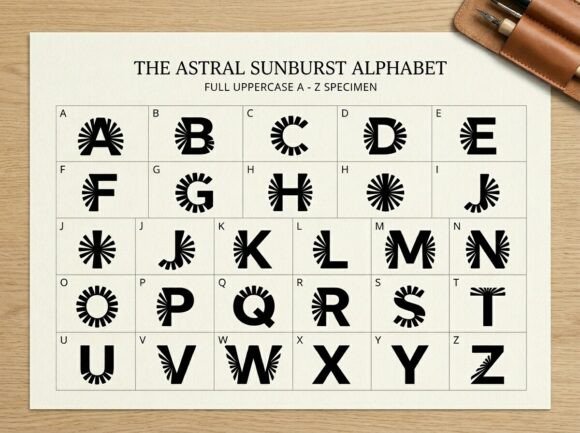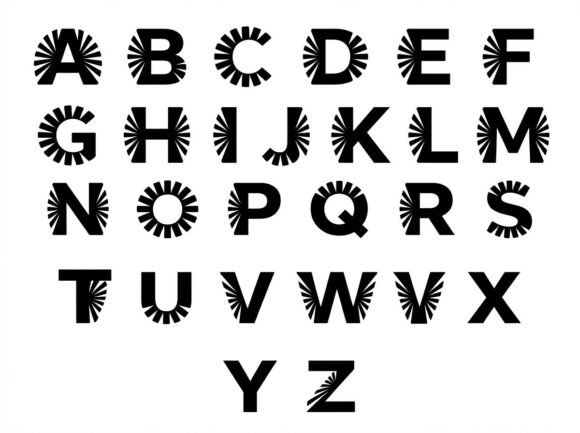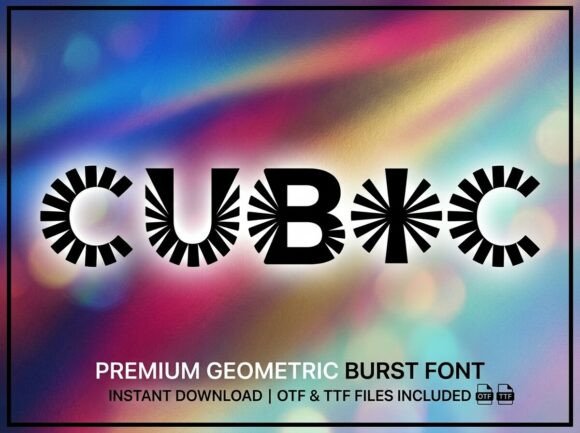
Introduction to Cubic Font
Ignite your creative projects with Cubic, an explosive radial display font designed to burst off the page.
This high-impact typeface features bold, sans-serif letterforms characterized by a dynamic β€œshattered” effect, with sharp shards radiating outward from the center of each glyph The rhythmic contrast between the solid black cores and the airy, splintered terminals creates a sense of instantaneous motion and centrifugal force.
Key Features of Cubic Font
Why Choose Cubic Font?